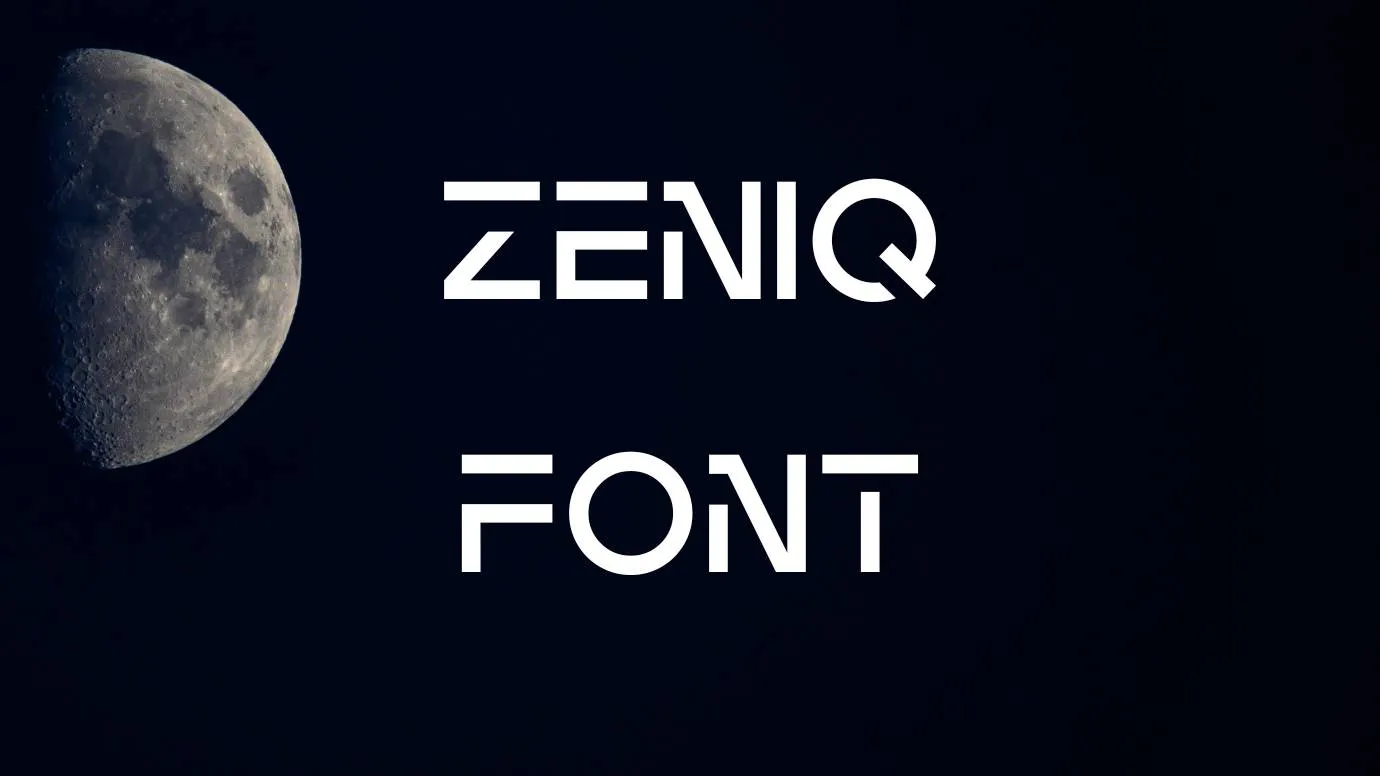
Zeniq Font Family comes in the sans serif family. This stunning font family was mainly designed by HansCo which is a popular font Studio. This awesome typography comes with four weights along with different styles.
Zeniq Font
NameZeniq Font
TypeSans Serif
DesignerHansCo